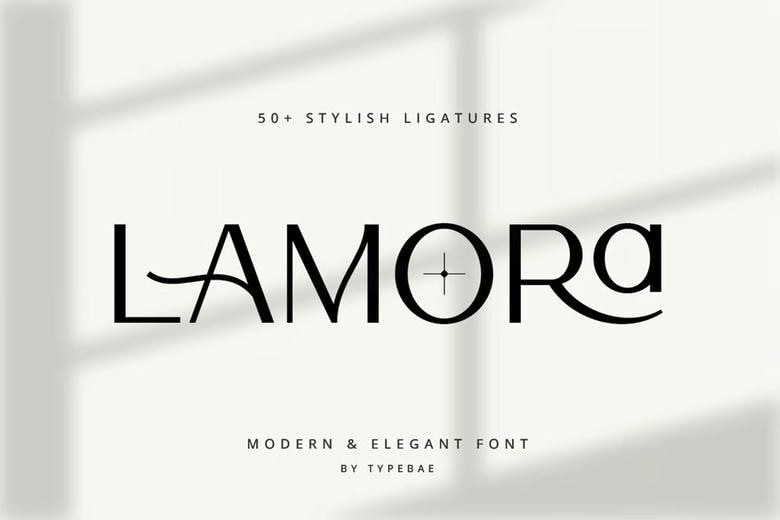
Lamora Sans Font
Lamora is modern ligature logo font developed with a sense of esthetics that can uplift any given brand identity. It comes with 59 edgy ligatures and 27 beautiful stylistic alternates so that you have infinite possibilities of creating unique and sophisticated typography.
Its smooth lines and elegant typefaces make Mora excellent to be used in branding premium applications, fashion brands, editorial design, wedding cards, and minimal logo designs. This multifunctional font combines the timeless appeal with a modern touch, thus remaining a perfect choice to be adopted in print and web-design.
Lamora Sans Serif Font